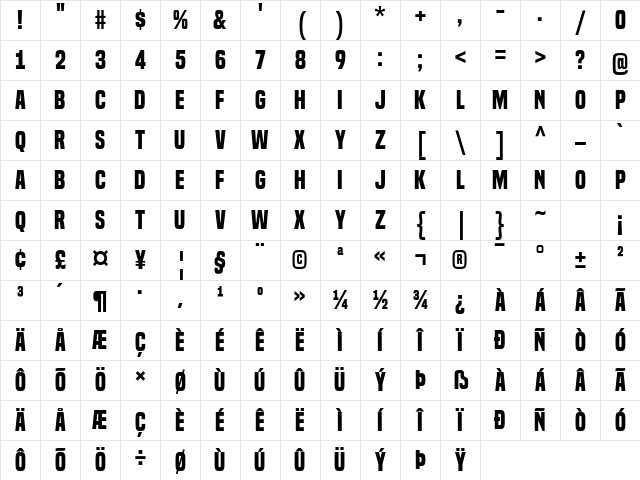
Built Titling Bold Free Font
Built Titling Bold
Built Titling Family
Design Context for Built Titling
Built Titling is a composed and adaptable typeface that performs quietly and consistently across a wide range of design contexts. Its bold stroke weight gives it real presence on the page.